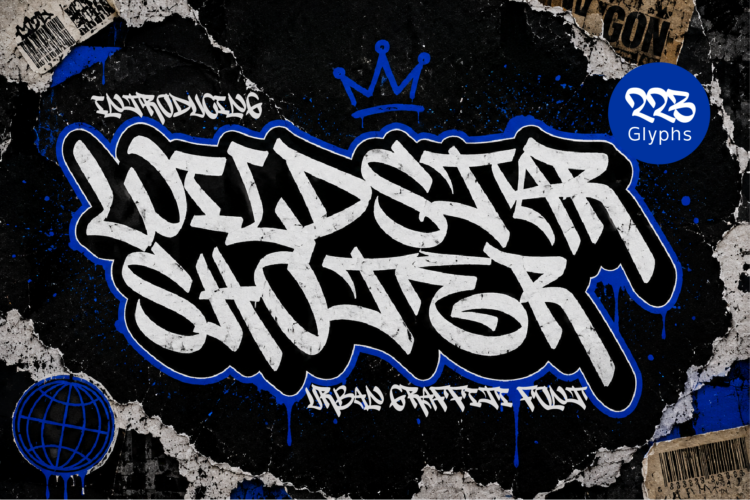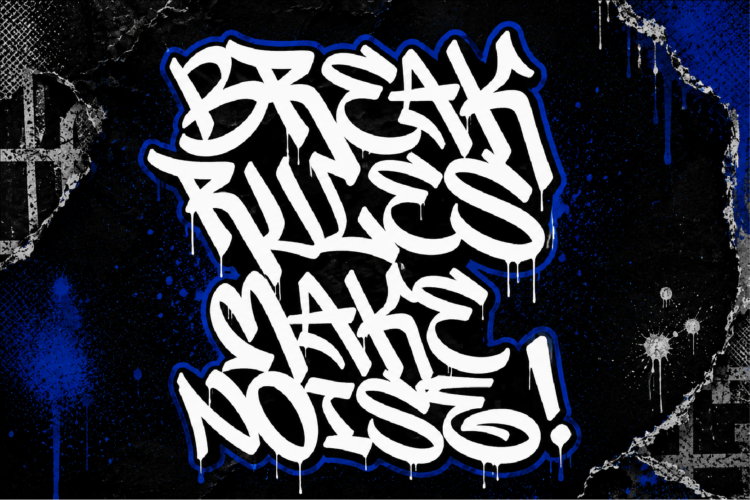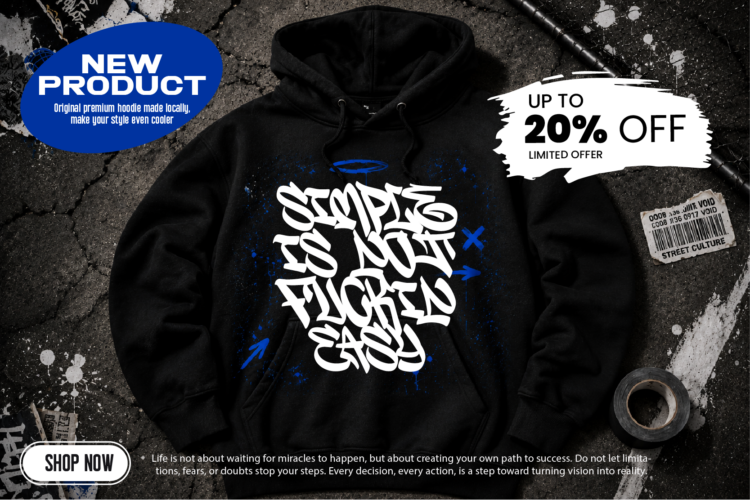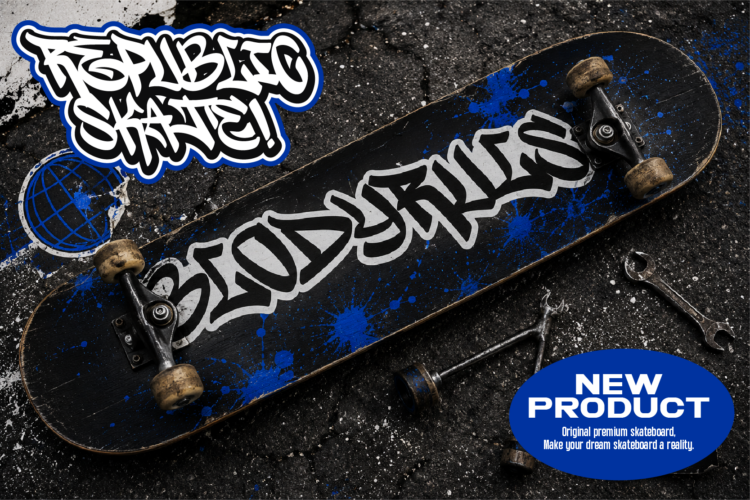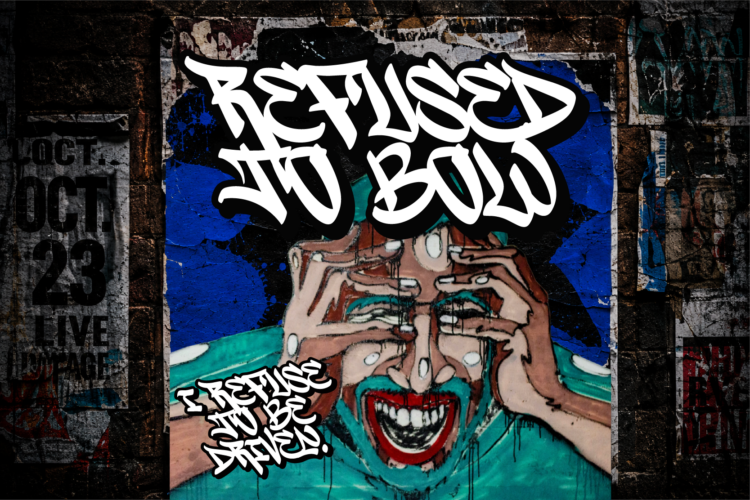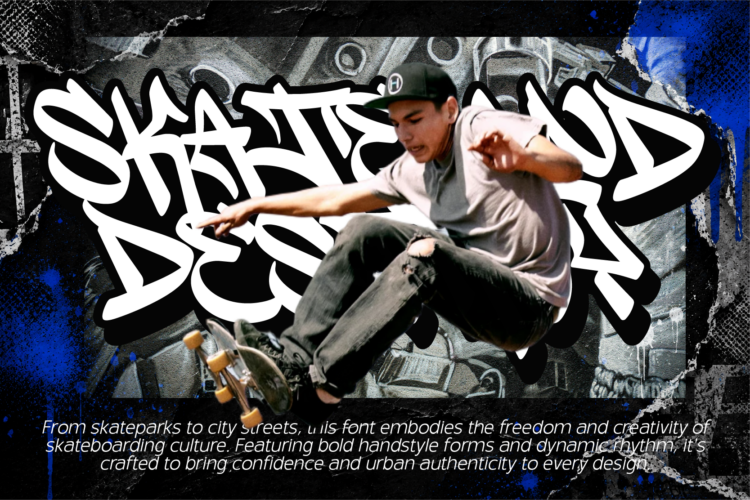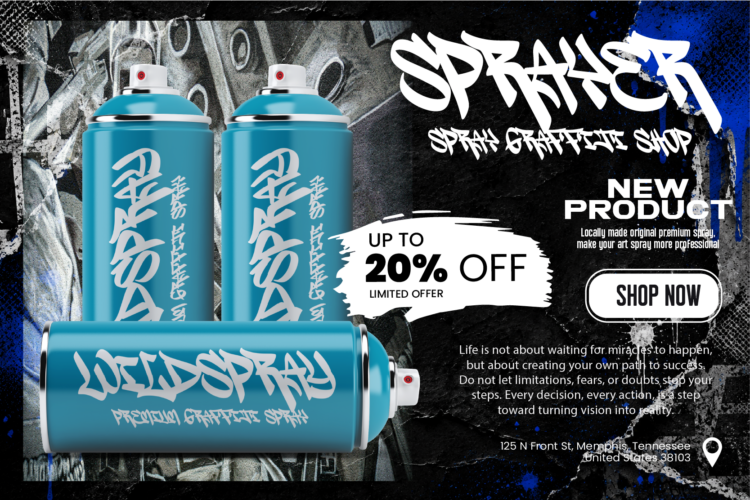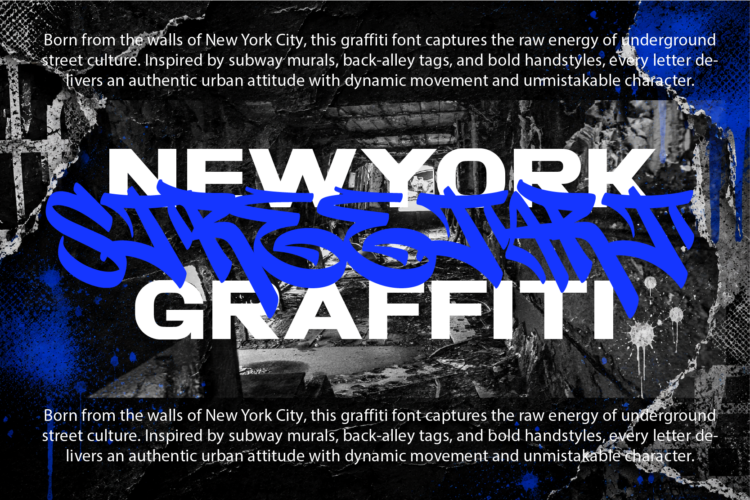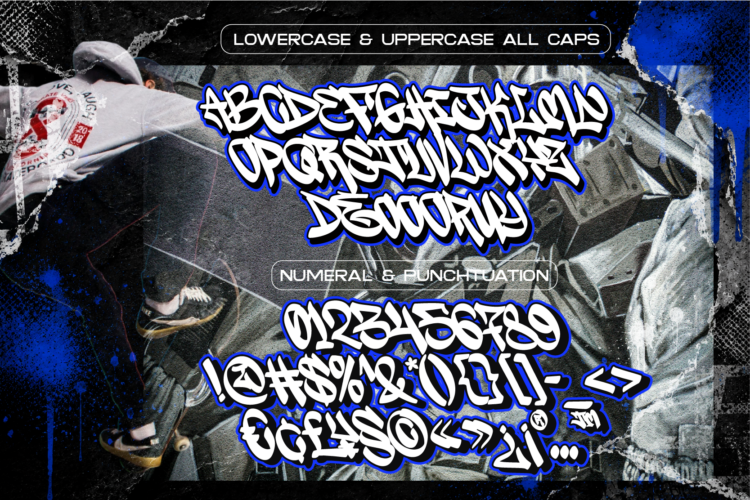
Introducing: Wildstar Shoter – Urban Graffiti Font
Wildstar Shoter is a bold urban graffiti display font inspired by authentic street art, wall tags, skate culture, and underground hip-hop vibes. Featuring expressive handstyle lettering with dynamic strokes and raw graffiti energy, this font is perfect for creating eye-catching designs that stand out with a rebellious street attitude.
Whether you’re designing apparel, posters, album covers, branding, stickers, social media graphics, or urban-inspired projects, Wildstar Shoter brings the spirit of city walls and graffiti culture into every design.
• Uppercase & lowercase
• Numbers & punctuation
• Alternate Characters
• Multilingual support
Streetwear branding, graffiti artwork, posters, skate graphics, album covers, logos, packaging, social media, YouTube thumbnails, stickers, merchandise, urban branding, and bold typography projects.